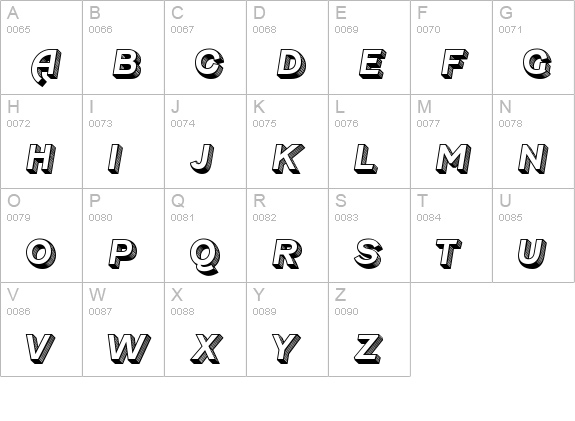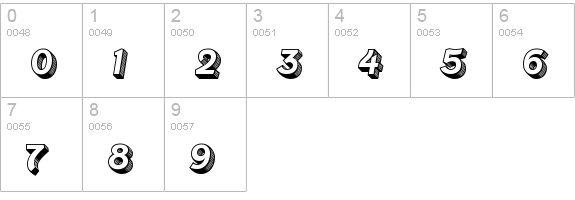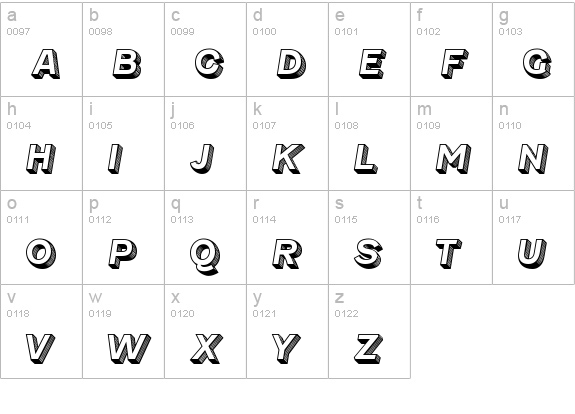
Fenwick Olden font is a classic and elegant typeface that exudes sophistication and timeless charm. With its vintage-inspired design and intricate details, this font is perfect for adding a touch of nostalgia to your projects. The versatile nature of Fenwick Olden font makes it ideal for a wide range of creative applications, from branding to invitations to editorial designs. What sets Fenwick Olden font apart is not only its timeless appeal but also its accessibility. This exquisite font is available for free download at FontsMarket.com, making it easy for designers and creatives to access and use this beautiful typeface in their projects. Whether you're working on a professional design or a personal project, Fenwick Olden font is sure to elevate your work with its classic and refined aesthetic.